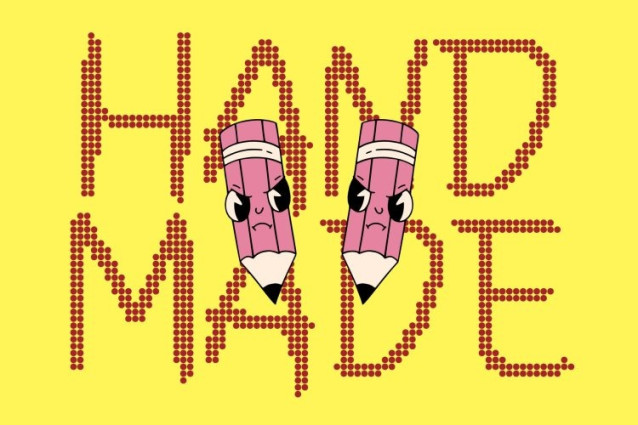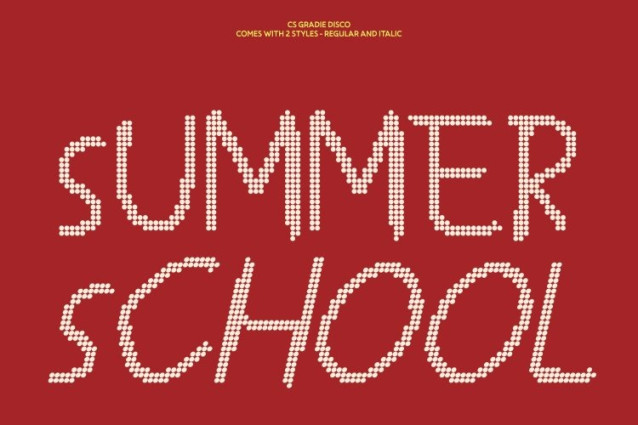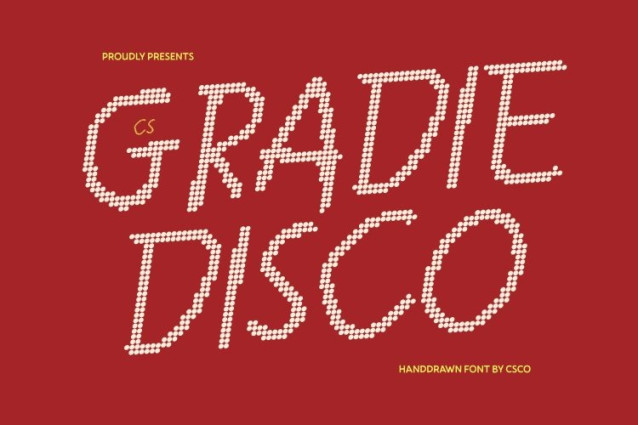
CS Gradie Disco Font
CS Gradie Disco Font – This is a handwriting-inspired display font that captures the warmth, spontaneity, and imperfect beauty of real pen strokes now infused with a lively disco mood. Designed with playful, kid-like messiness, it delivers an authentic handwritten feel that’s energetic, expressive, and full of personality. Each letter moves freely with natural rhythm, creating typography that feels joyful, friendly, and alive.
Warm Strokes for a Genuine, Approachable Look
The organic pen-style strokes give this font a heartfelt and welcoming presence. Its casual flow feels sincere and human, making text appear personal and emotionally engaging. This warmth helps designs feel relatable and inviting, perfect for messages that aim to connect on a friendly and expressive level.
Playful Messiness with Youthful Energy
What makes this font special is its charming imperfection. Slightly uneven shapes, spontaneous curves, and lively strokes reflect the joyful creativity of children’s handwriting. This playful messiness adds imagination and fun, creating a cheerful visual rhythm that keeps designs light, energetic, and full of character.
Perfect for Kids’ Designs, Fun Branding, and Cheerful Projects
This font shines in children’s designs, playful branding, quotes, greeting cards, posters, packaging, and social media content. Ideal for cheerful titles, expressive messages, and creative layouts, it brings warmth, whimsy, and disco-inspired happiness to every project.